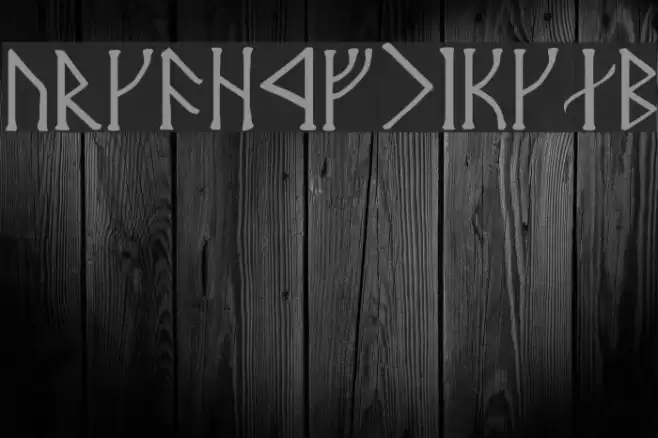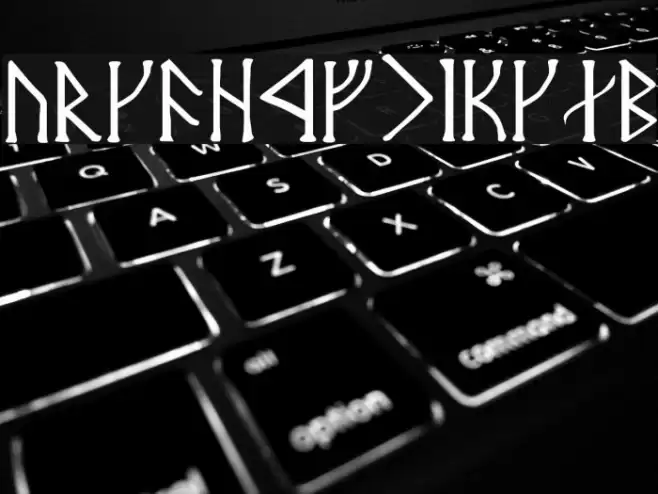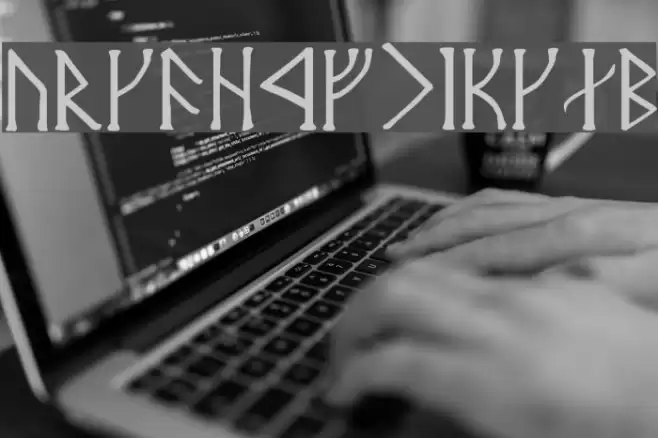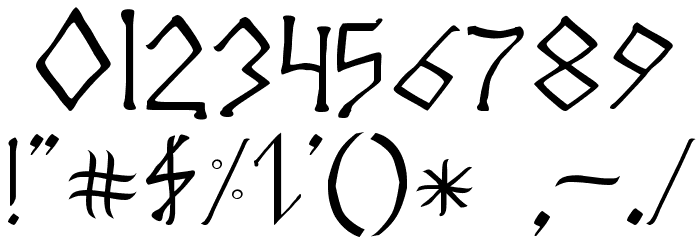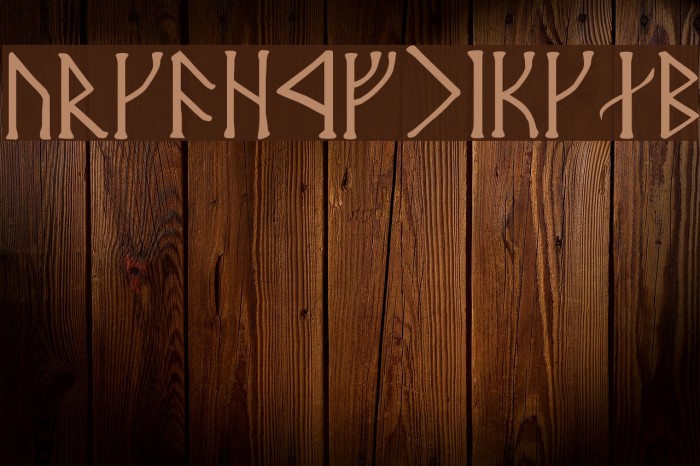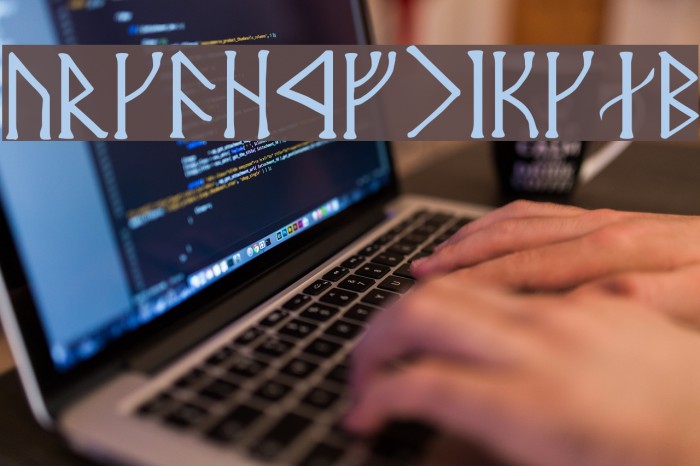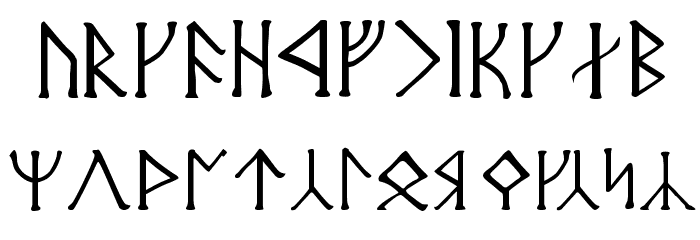
Angerthas Moria Font
Angerthas Moria Description
This font is a decorative script inspired by ancient runic alphabets, featuring angular and geometric shapes that evoke a sense of mystery and antiquity. The characters are bold and distinct, with sharp edges and a consistent stroke width that gives them a strong presence. The numerals and special characters maintain the same stylistic elements, ensuring a cohesive look across all glyphs. This font is perfect for projects that require a touch of fantasy or historical depth, such as themed events, games, or literature. Its unique style makes it stand out, capturing the imagination with its ancient allure.
A decorative, runic-inspired font with bold, angular characters from Dingbats fonts.
- Proposed Projects: Ideal for fantasy-themed designs, historical recreations, or game interfaces.
- Use Case: Logos, Headlines, Themed Events